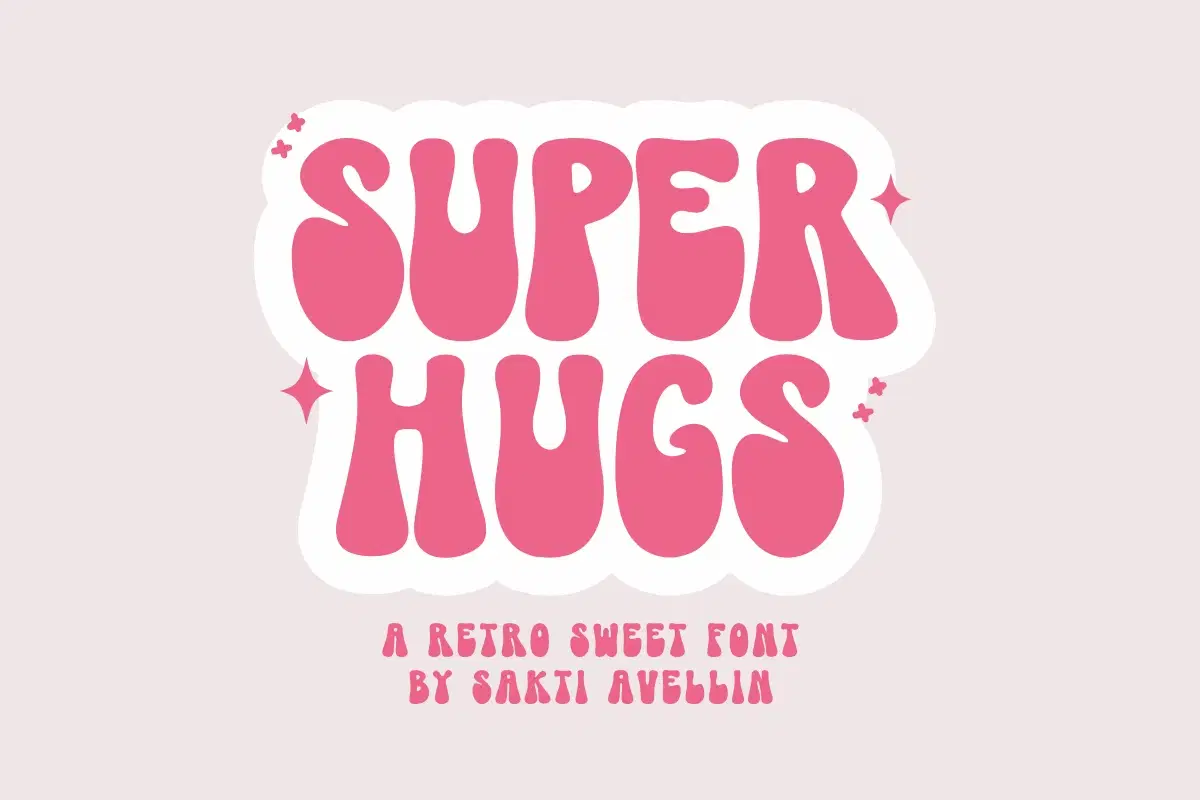
Super Hugs - Retro Sweet Font
Super Hugs is an incredibly sweet and charming retro sweet font that embodies the playful, groovy aesthetic of the 60s and 70s. This chunky display font features soft, rounded edges and a delightful bounce, making it perfect for vintage branding, cute kids' designs, whimsical t-shirt prints, retro posters, and vibrant social media graphics. As a powerful display typeface, it guarantees high impact and readability, ideal for feminine logos, product packaging, and any project needing a nostalgic yet modern feel. Give your designs a massive, friendly embrace with this truly groovy font!